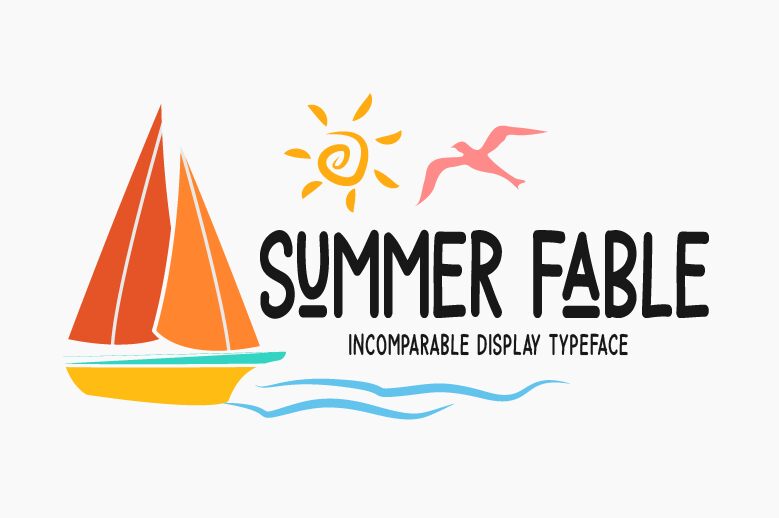
Summer Fable
Summer Fable, designed by Md Shohail Bhuian, is a captivating display font that adds a touch of enchantment to any project. Its semi-light weight and condensed width make it perfect for creating elegant headings and titles that demand attention.
Embrace the whimsical nature of Summer Fable for your children's book covers, fantasy-themed invitations, or even for branding projects seeking a touch of magic. This unique font brings a sense of wonder and playfulness to any design, allowing your creativity to soar.
Let Summer Fable transport your audience into a world where dreams come true.